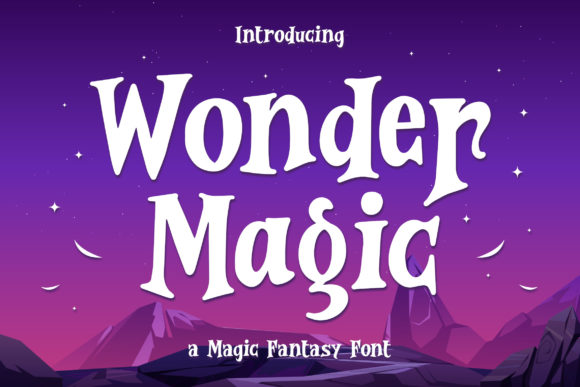
Behold Wonder Magic, a captivating serif font that will transport you to a realm of enchantment and allure! Crafted by the ingenious minds at TypeFactory, this font family is a symphony of elegance and mystique, perfect for conjuring an atmosphere of wonder and magic in your designs.
Picture this: your web pages adorned with the graceful curves and delicate flourishes of Wonder Magic. Each letter dances across the screen, as if spun from the finest stardust, inviting your readers on an extraordinary journey. Whether you're crafting enchanting invitations, weaving captivating stories, or designing spellbinding social media posts, Wonder Magic will cast a mesmerizing spell on your audience.
Step into the world of Wonder Magic and let your imagination run wild. With its distinctive character and bewitching charm, this font will make your designs shine brighter than a thousand stars. Picture your presentations adorned with Wonder Magic, enchanting your audience with its captivating allure. Each slide will transform into a portal to a world of wonder, where words dance and meanings intertwine.
But Wonder Magic's magic extends far beyond the digital realm. Unleash its power in your print designs, and watch as your creations come alive with a touch of whimsy and enchantment. From captivating book covers that draw readers into fantastical realms to eye-catching posters that spark imaginations, Wonder Magic will weave its spell, leaving a trail of wonder and amazement in its wake.
So why settle for ordinary fonts when you can embrace the magic of Wonder Magic? With its enchanting aura and limitless versatility, this font is your key to unlocking a world of creativity and wonder. Download Wonder Magic today and let your designs take on a life of their own, captivating hearts and igniting imaginations. Let Wonder Magic be your muse, your guiding light into a realm where dreams come true and magic fills the air. Experience the wonder, embrace the magic!